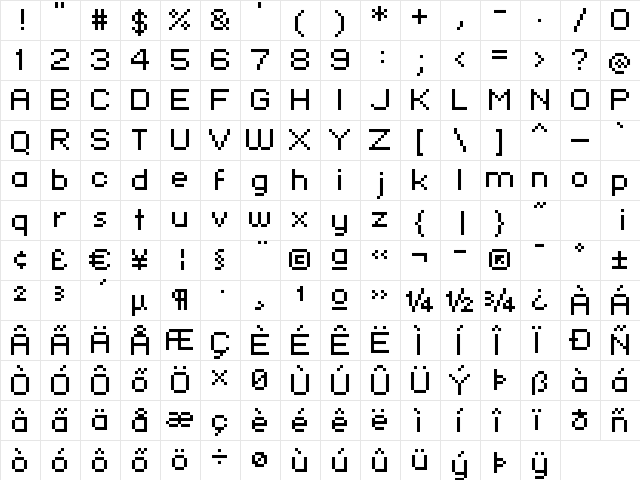
standard 07_54 Regular
| Designer | Craig Kroeger |
Design Context for standard 07_54 Typeface
standard 07_54 offers clean, dependable letterforms without strong stylistic allegiance, making it a practical choice for designers who need flexibility.